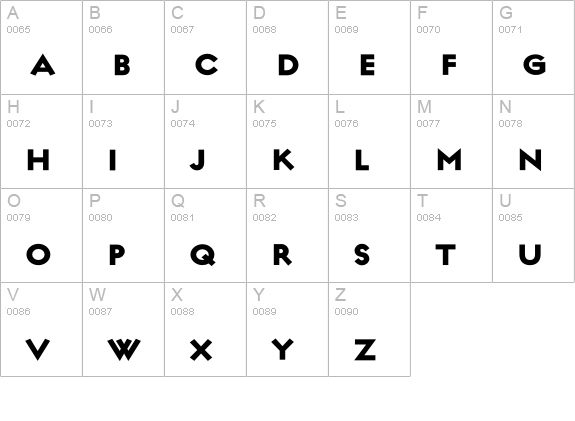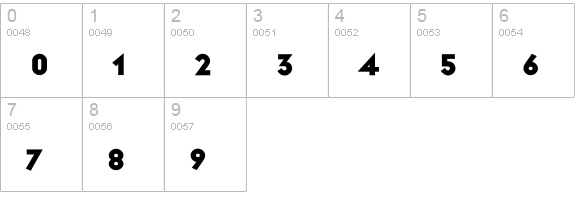
Regulator-Heavy Font Details
Regulator-Heavy is a heavy, high-impact variant in the Regulator typeface family \xE2\x80\x94 well suited to high-impact headlines, posters, and display advertising.
Regulator-Heavy font is a bold and commanding typeface that exudes power and authority. With its strong and sturdy letterforms, this font is perfect for conveying a sense of strength and stability in any design project. The thick and blocky characters of Regulator-Heavy make a bold statement, instantly capturing attention and leaving a lasting impression. Whether used in headlines, titles, or logos, this font demands attention and conveys a sense of confidence. What sets Regulator-Heavy font apart is not only its striking design, but also the fact that it is freely available to download at FontsMarket.com. This means that designers and creatives can access this powerful font without any restrictions, allowing them to fully unleash their creativity. With Regulator-Heavy font, you have the freedom to create impactful designs that stand out from the crowd. Its versatility makes it suitable for a wide range of projects, from branding and advertising to packaging and web design. The strong and bold nature of this font ensures that your message will be delivered with impact and clarity. Download Regulator-Heavy font for free at FontsMarket.com and unlock the potential of this commanding typeface. Whether you're looking to make a bold statement or add a touch of strength to your designs, Regulator-Heavy font is the perfect tool to help you achieve your creative vision.